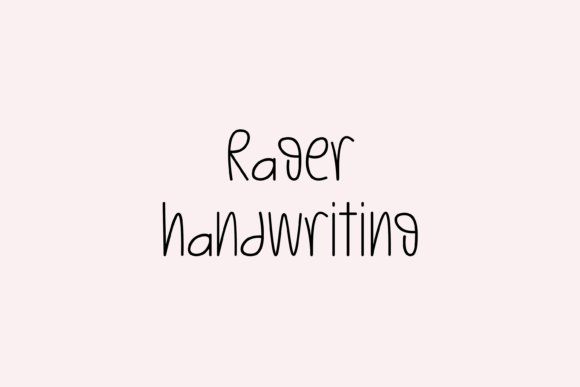
Unleash your creativity with Rager Font, a charming and playful handwritten typeface that exudes a childlike innocence and wonder. Let your designs dance with joy and embrace the whimsical nature of this font. With its quirky and lighthearted style, Rager Font is the perfect choice for adding a touch of magic to your projects.
Picture the captivating beauty of your designs adorned with Rager Font. Imagine the joy it will bring to your logos, wedding invitations, quotes, advertisements, print, magazines, and more. This delightful font will captivate your audience with its enchanting charm and delightful curves.
Rager Font is not just a font; it's an expression of your creativity, a reflection of your unique style. Its simple yet captivating strokes will elevate your designs to new heights of imagination. Whether you're a seasoned designer or just starting, Rager Font will be your trusted companion, helping you bring your creative visions to life.
Dive into the world of Rager Font and let your designs bloom with joy and whimsy. Add it confidently to your projects and marvel at the stunning results. Experience the magic of Rager Font and let your designs dance with delight.